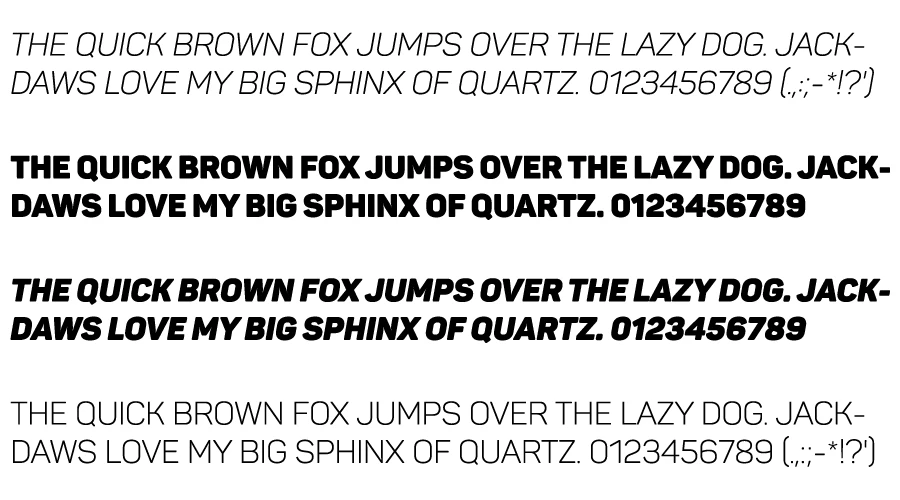
Panton is a sans serif typeface font designed by Svetoslav Simov and Ivan Petrov. Font Fabric foundry released this font. With its excellent legibility, unique style, and geometric forms, the Panton font family contains 54 fonts, 19 uprights with 19 different italics, and 16 icon sets as a bonus. This font is inspired by the classic grotesque typeface.
Panton font is perfect for headlines of all sizes and text blocks (maximum and minimum variations). This font is also very useful for official documents. This font style is eligible for any type of graphic design. You can make logos, brochures, banners, posters, presentations, t-shirts and many more. The 16 icon sets will give you extra benefits to your website and everything. It is also perfect for web & print design areas.
You Tuber’s can also use this font for their YouTube content. They can make thumbnails using Panton and also can make their channel art. So if you want to add high-quality typography to your project then this font is very suitable.
NamePanton Font
StyleSans serif
AuthorSvetoslav Simov and Ivan Petrov
What type of font is Panton?
Ans: Panton is a sans serif typeface font designed by Svetoslav Simov and Ivan Petrov.